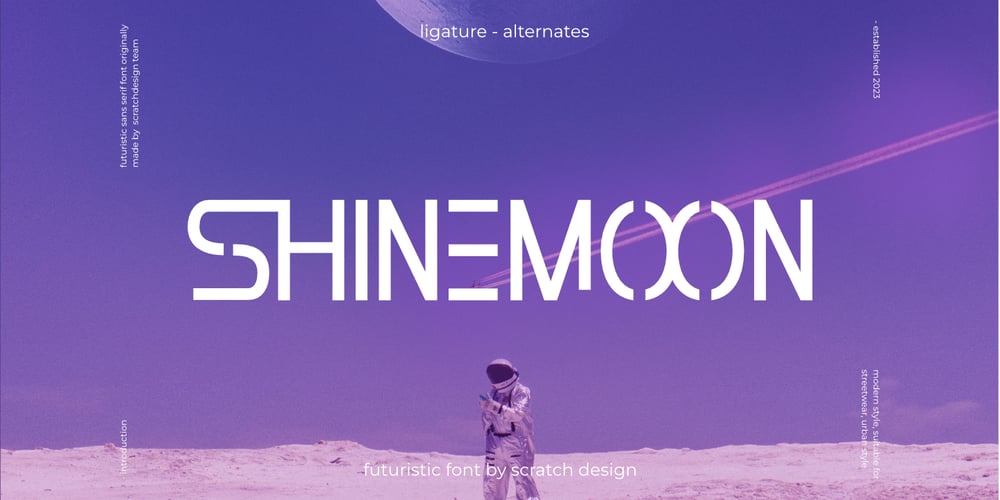
Shinemoon Font Family was designed by Gitayogi Irhandi and published by Scratch Design. Shinemoon contains 1 styles and family package options. Introducing, Shinemoon, a futuristic font by Scratch DesignShinemoon is a sans-based font with futuristic hi-tech lowercase & uppercase that will make your design look futuristic and modern. This font will be suitable for science-fiction movie posters, advertising, or projects that match with hi-tech, robots, space, future, planet or race. You can mix and match the uppercase and lowercase to make your design more stunning and stand out. This font is also included with ligatures, alternates and multi-language.Enjoy this futuristic font!